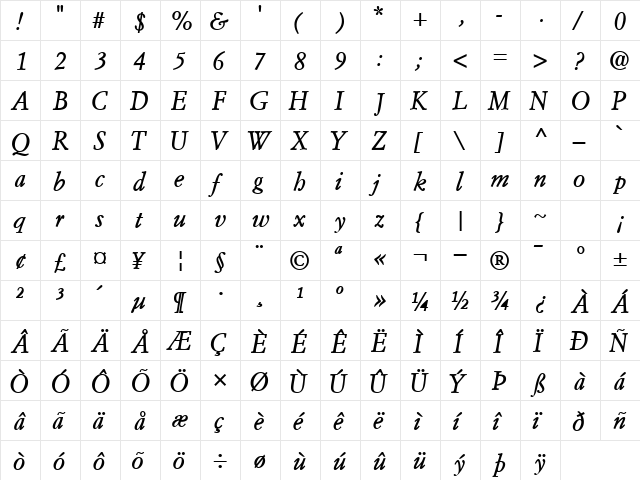
FlorentineGaramondSSK BoldItalic
Design Context for FlorentineGaramondSSK Typeface
FlorentineGaramondSSK takes a measured approach to typography — its balanced proportions and neutral character make it a reliable workhorse for both digital and print work. Its italic angle brings a sense of urgency and motion to the letterforms. Its bold stroke weight gives it real presence on the page.
Pro Tip: Use FlorentineGaramondSSK for emphasis, pull quotes, and subheadings where its slanted energy can add rhythm to the layout.